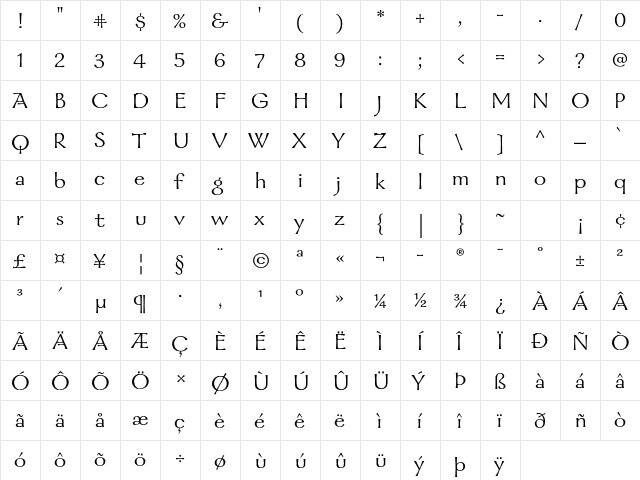
Galahad Std Regular Font Preview
Galahad Std Regular
Galahad Std Regular Font Details
| Designer | Alan Blackman |
Design Context for Galahad Std Typeface
Galahad Std takes a measured approach to typography — its balanced proportions and neutral character make it a reliable workhorse for both digital and print work.